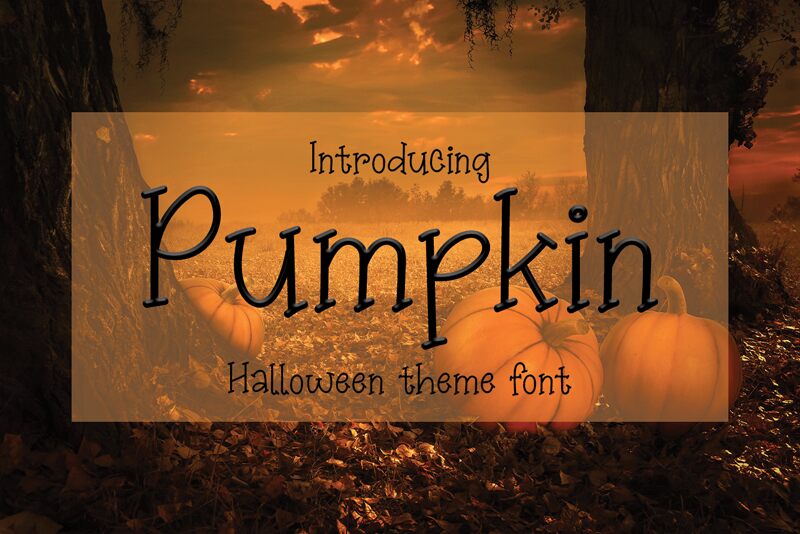
Pumpkin
Pumpkin is a cool and quirky display font designed by Erik Studio. No matter the topic, this font will be an incredibly asset to your fonts library, as it has the potential to elevate any creation.